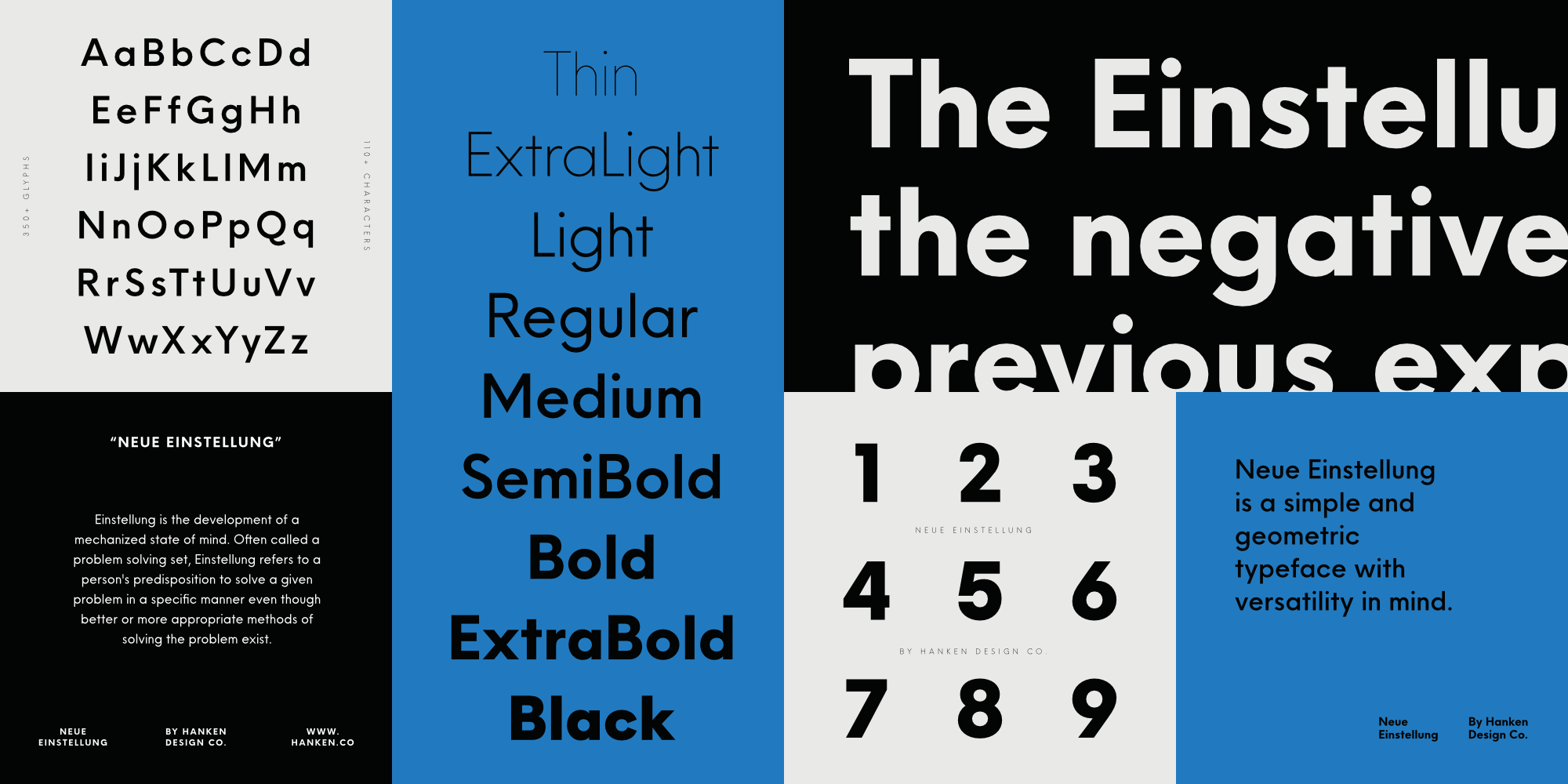
Neue Einstellung Font is perfect for German engineering company branding, precision manufacturing materials, technical documentation systems, industrial design presentations, automotive engineering graphics, scientific research publications, mechanical precision instruments, Germanic cultural institutions, systematic business communications, and methodical process documentation.
Neue Einstellung Font is exciting because it embodies the German philosophy of precision and systematic excellence through its meticulously engineered letterforms that reflect Germanic design principles while delivering messages with technical authority and unwavering commitment to perfectionist standards.
Neue Einstellung Font family includes Regular, Bold, Light, Precision, Italic, Condensed, Technical, and System variations, providing designers with a complete Germanic toolkit to create methodical visual communications that celebrate engineering excellence and systematic thinking across technical applications.
Neue Einstellung Font represents the pinnacle of Germanic design philosophy and engineering precision, making it an essential choice for organizations that embrace systematic approaches, technical excellence, and the methodical pursuit of perfection in their operations and communications. This precisely engineered typeface brings Germanic authority to any design project, whether you're developing industrial company identities, creating technical training materials, or designing systematic business processes. The mathematically optimized character geometry of Neue Einstellung Font Free Download ensures maximum clarity while maintaining the systematic aesthetic that appeals to engineers, technicians, and professionals who value precision and methodical approaches to complex challenges.
Engineering industry professionals consistently select Neue Einstellung Font for manufacturing companies, technical institutes, and precision equipment manufacturers because of its ability to communicate reliability, systematic thinking, and commitment to engineering excellence. The font's precise appearance makes it particularly effective for targeting technical audiences and creating brand experiences that emphasize quality and methodical precision.
Neue Einstellung Font excels in technical and industrial environments where accuracy and systematic organization are critical for operational success. Automotive manufacturers, precision instrument makers, and technical training organizations rely on this font to create materials that reflect their commitment to Germanic standards of excellence.
The technology and consulting sectors have embraced Neue Einstellung Font for engineering software, systematic business solutions, and technical consulting services. Its methodical visual character helps organizations create communications that inspire confidence in their ability to solve complex technical problems through systematic approaches, appealing to clients seeking Germanic-level precision and reliability in their technical solutions.